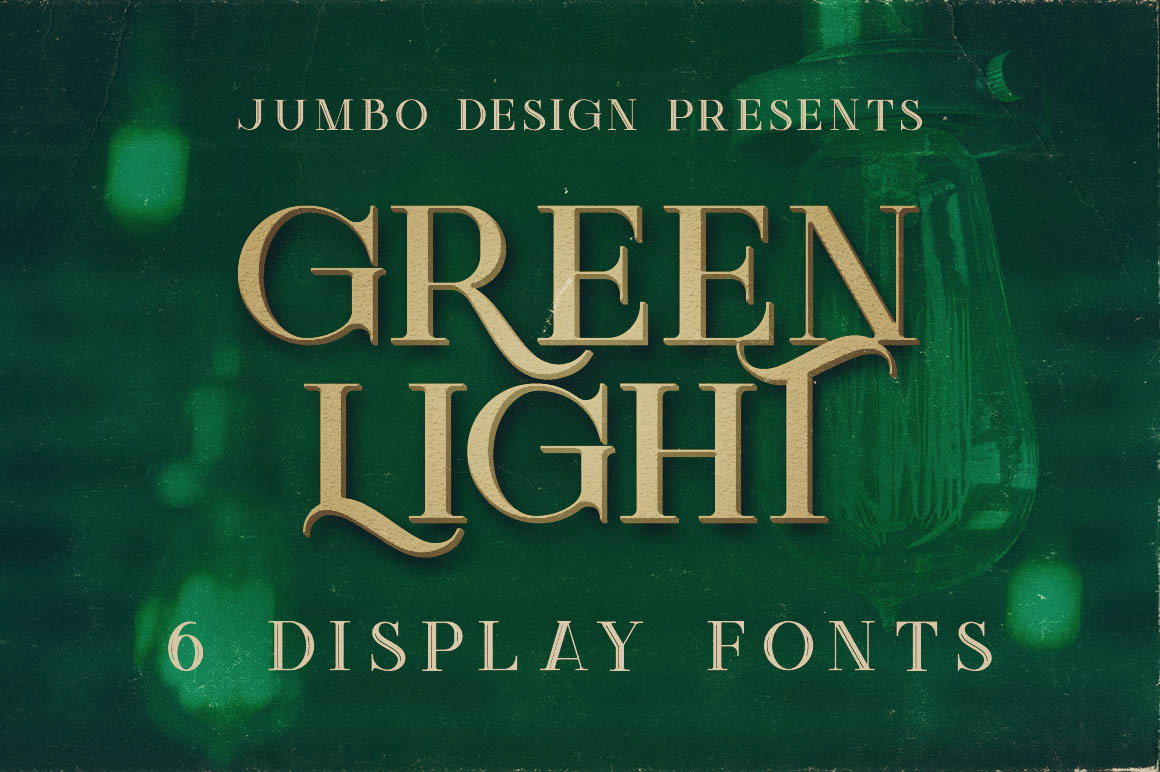
Green Light - Vintage Style Font
Unique retro or vintage style custom serif font with 6 styles: regular and grunge, bold inline and bold inline grunge, bold and bold grunge.